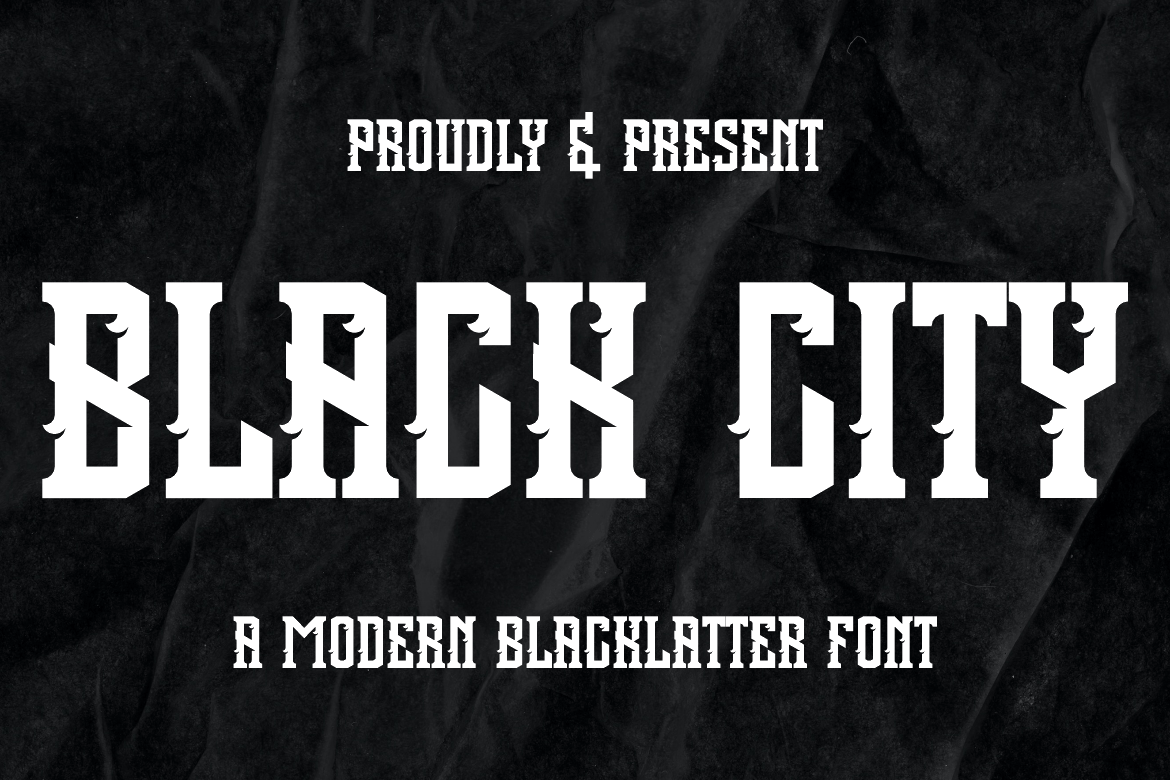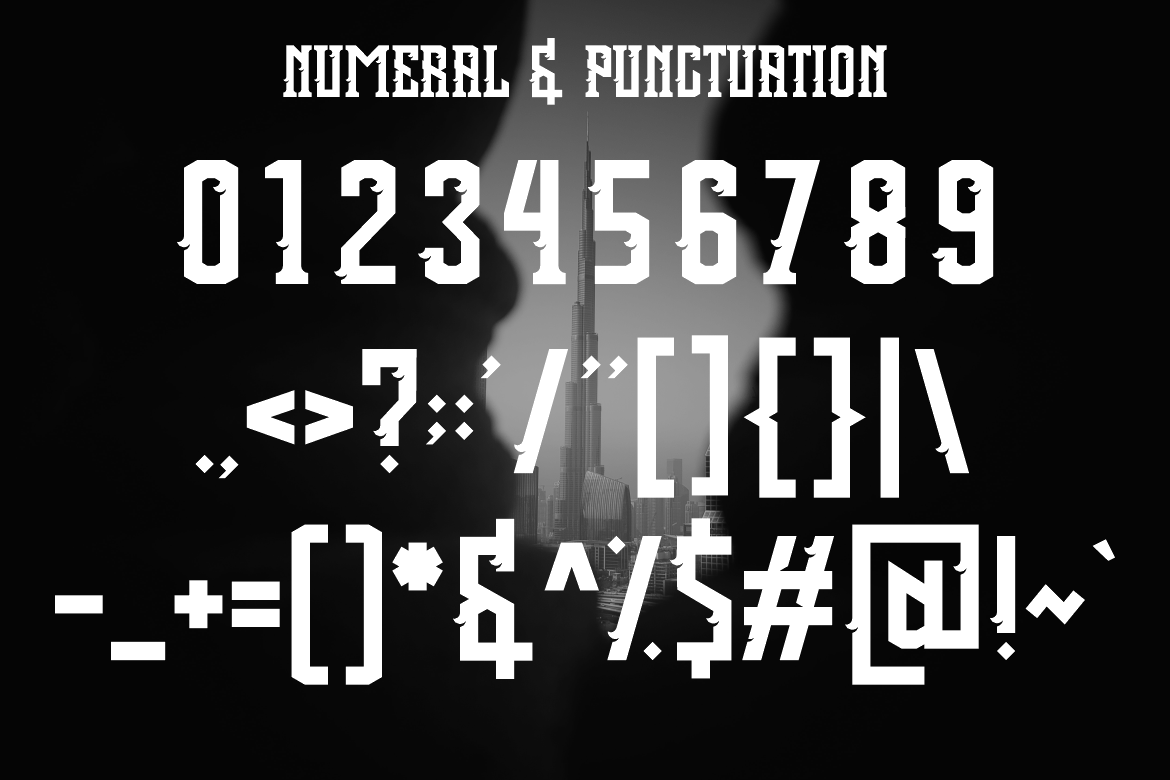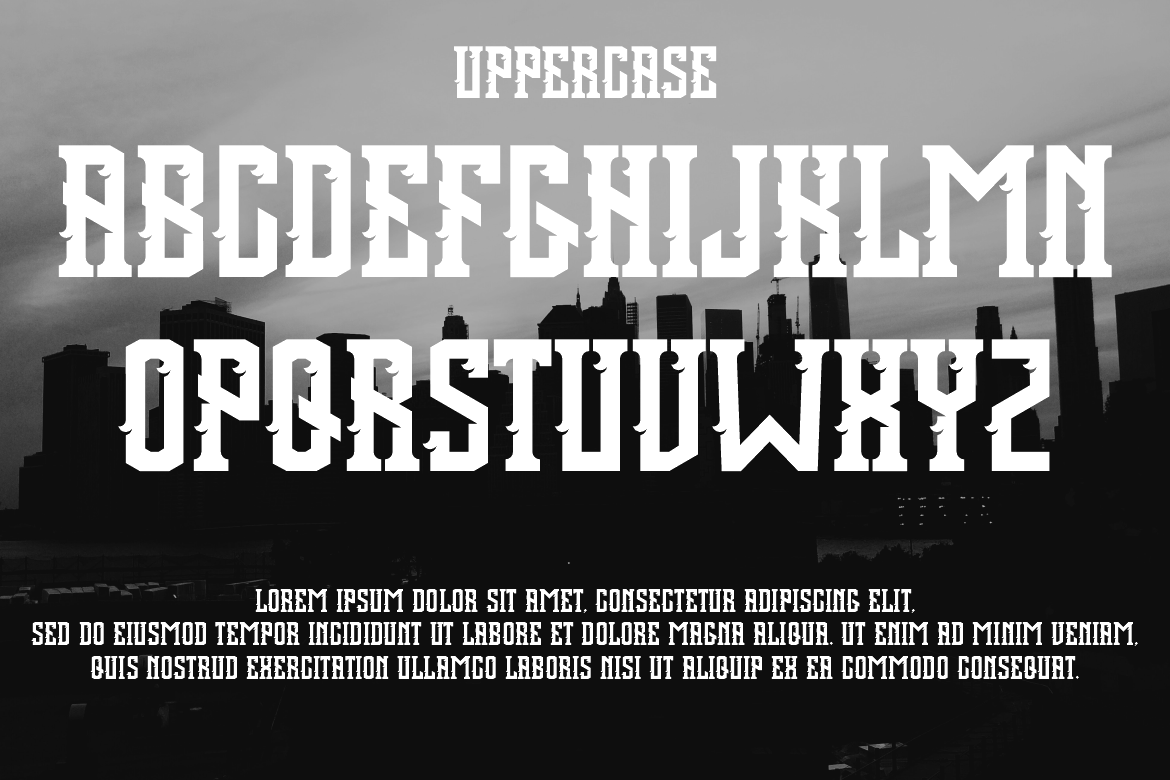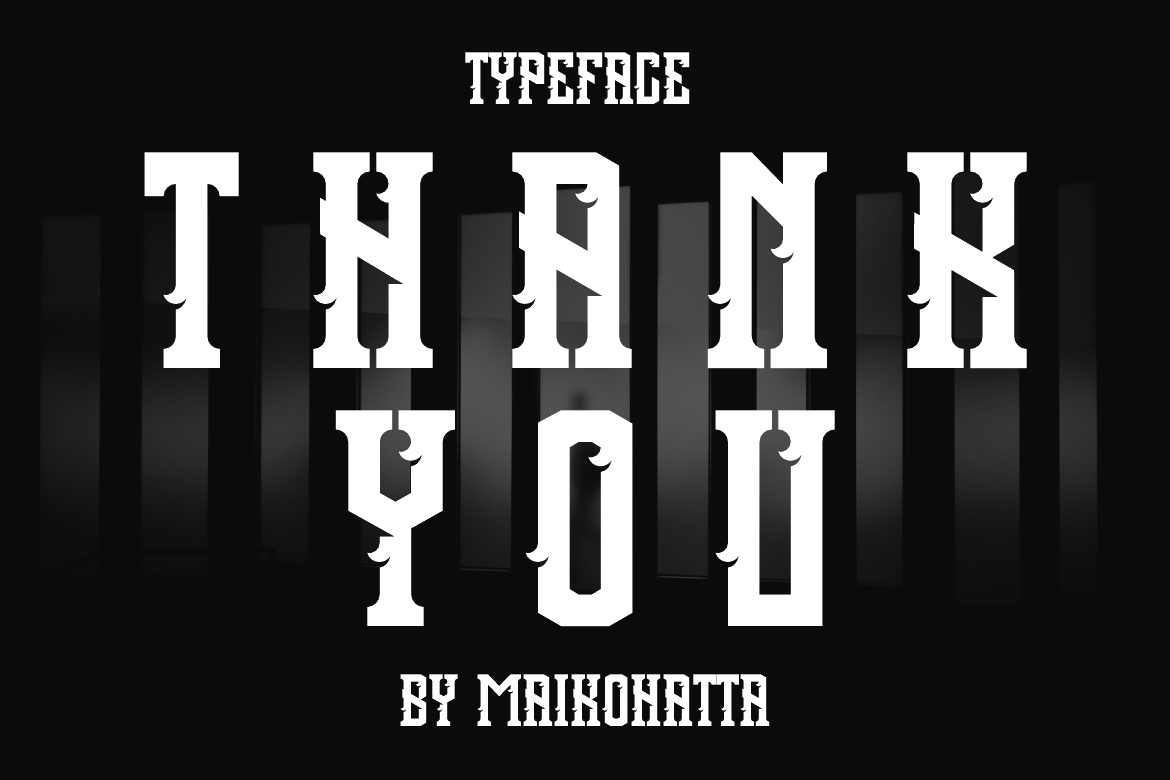
BLACK CITY FONT
Introducing our new product BLACK CITY FONT – Modern Font
BLACK CITY FONT – Modern Font is a bold and authentic display font. The font is suitable for any branding project like logo, template design, esport, and many more. outstanding in a wide range of contexts.